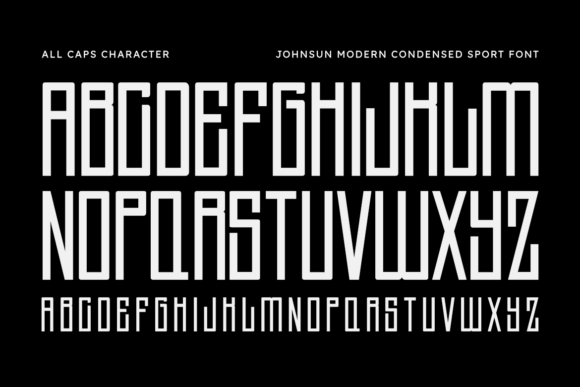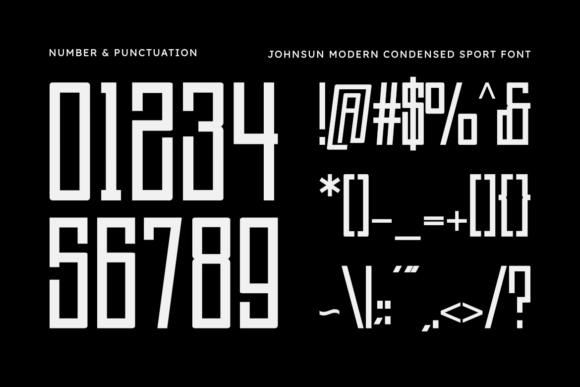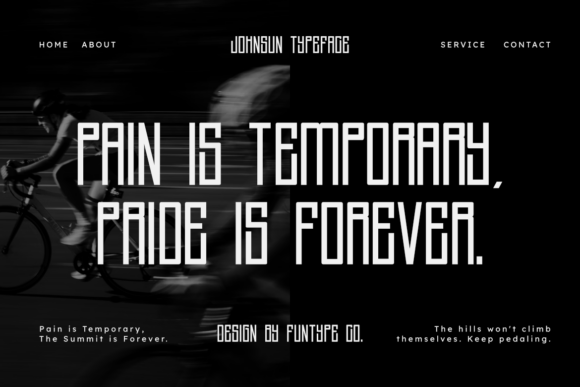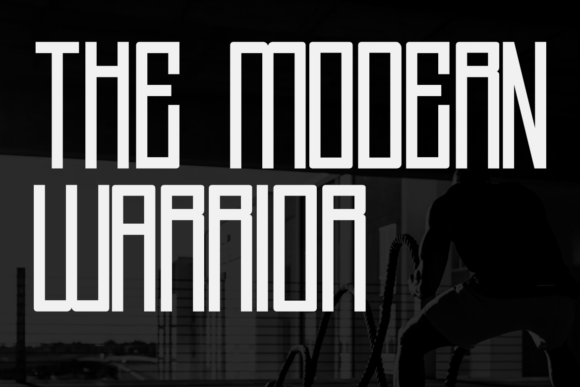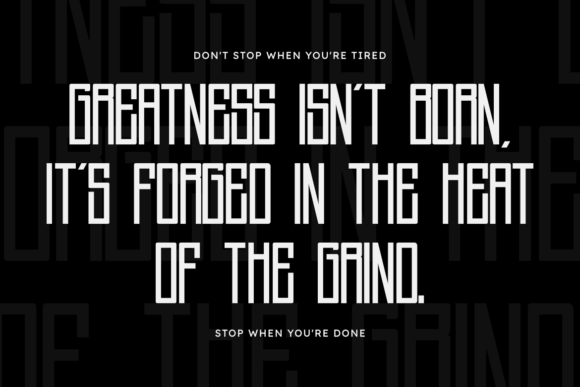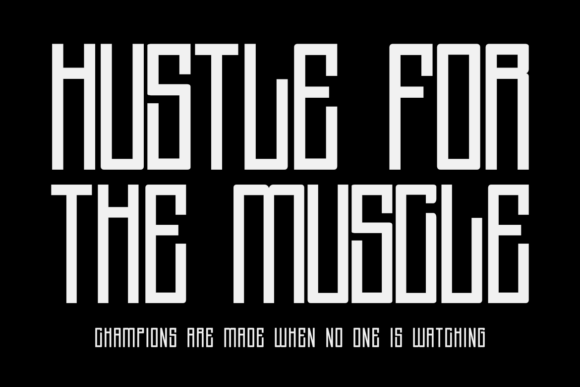
Introduction to Johnsun Font
Johnsun is a powerful and commanding condensed sans serif font designed for high-impact display.
With its tall, sturdy letterforms and modern geometric structure, Johnsun is engineered to dominate the screen and print alike It is the ideal choice for projects that require a bold, athletic, and industrial aesthetic.
Key Features of Johnsun Font